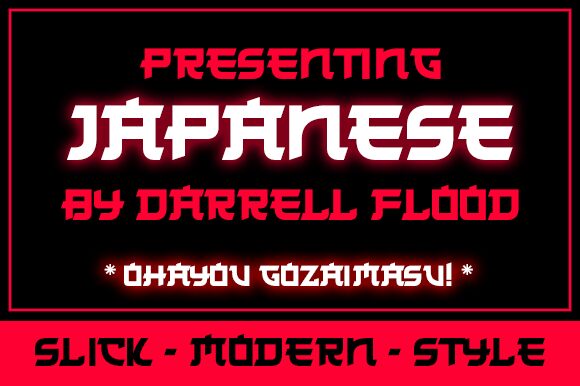
Japanese 2020 Italic
This font is a new take on my popular Japanese 3017 font.
2020 has angled strokes, extra curves in places, and various character tweaks for a slightly more natural look and improved readability